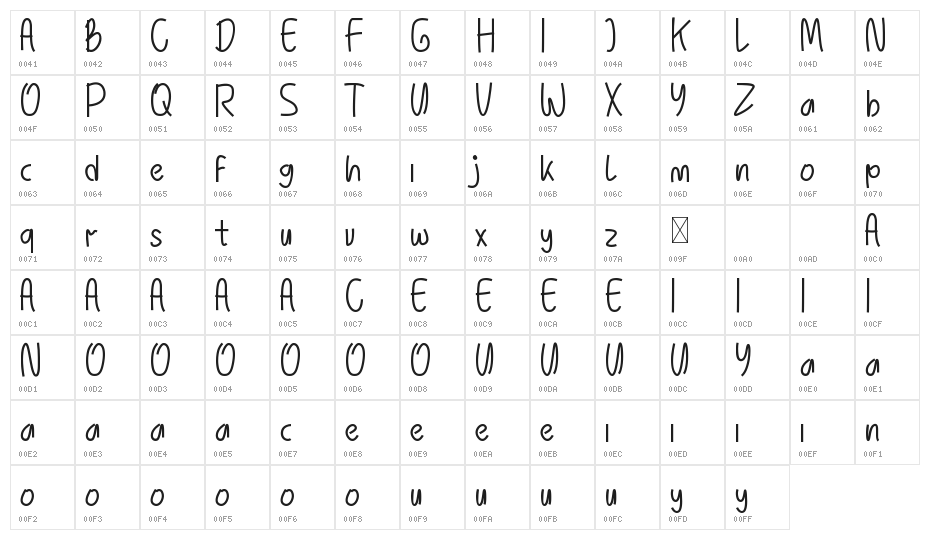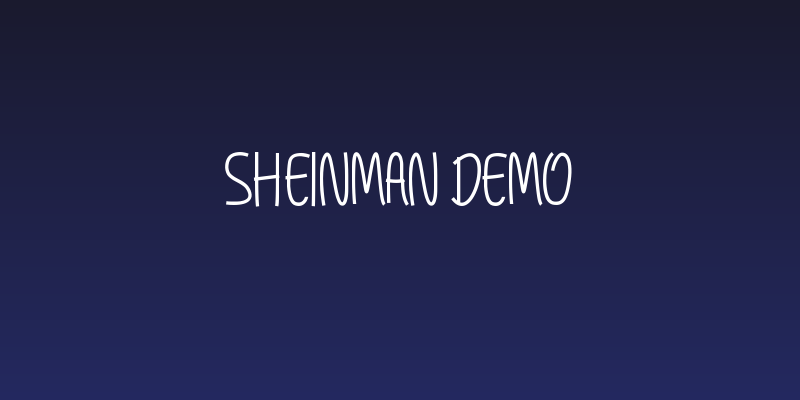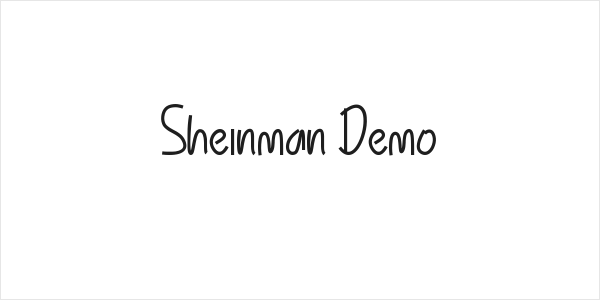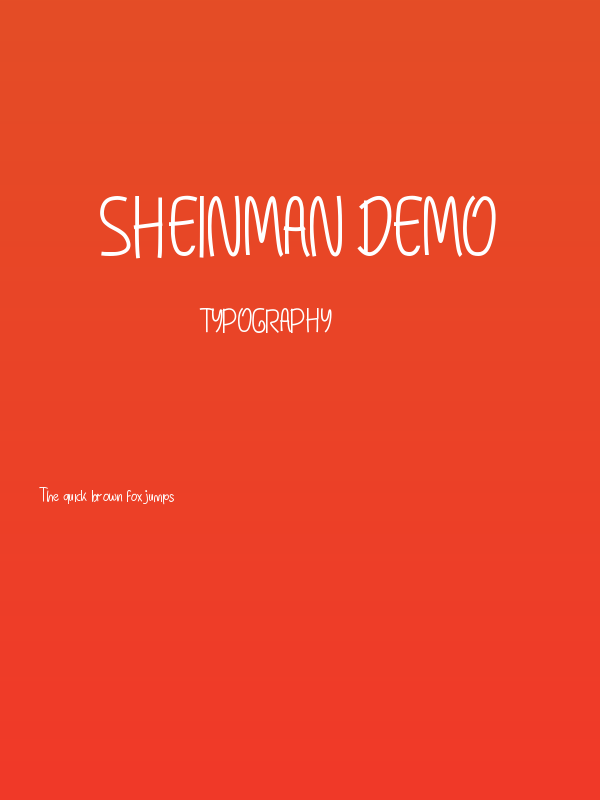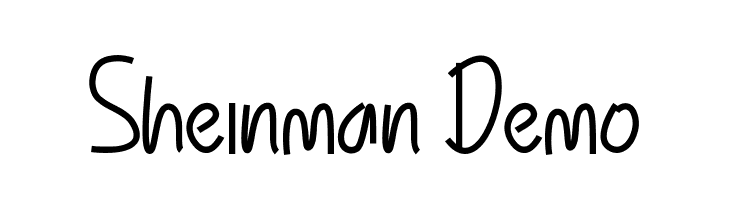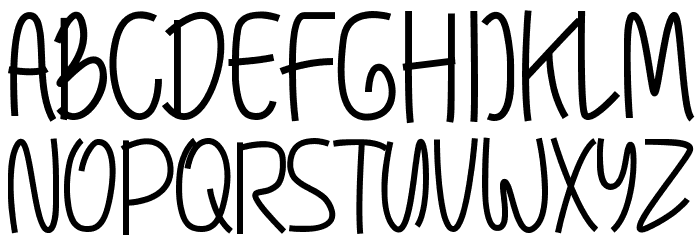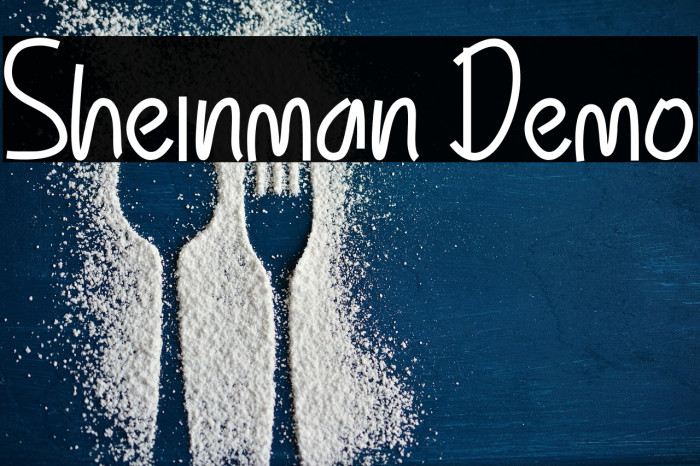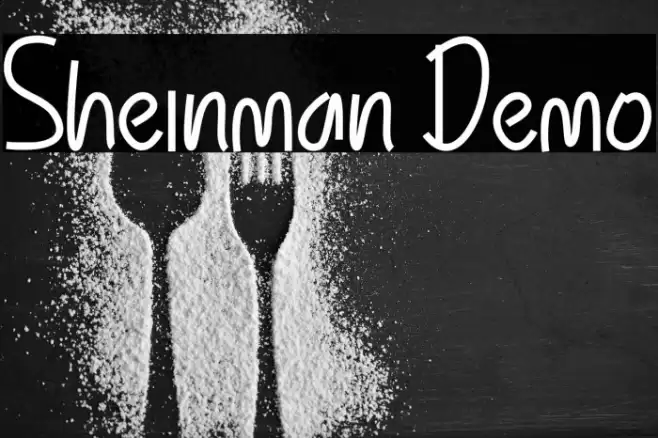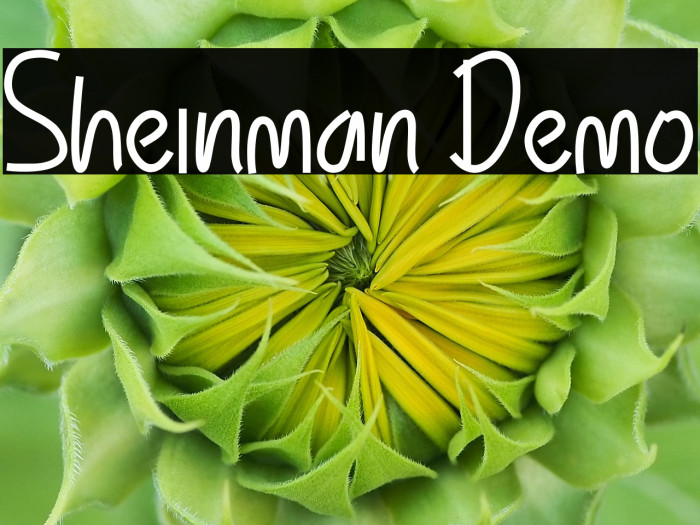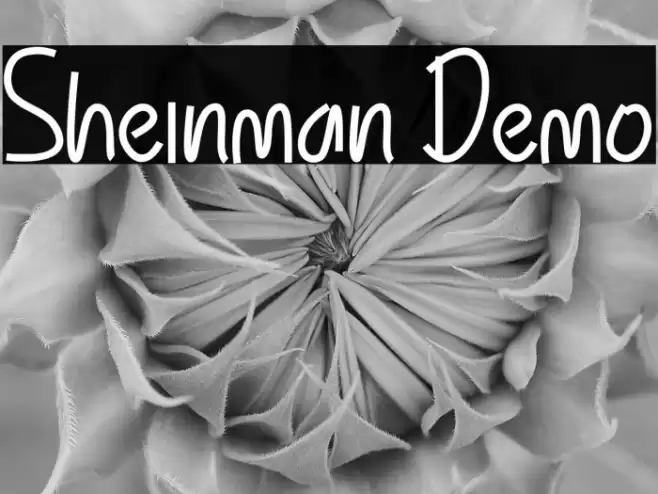
Sheinman Demo Font
| Общий стиль | Playful |
| Рекомендуемые проекты | Ideal for children's books, greeting cards, playful branding, and creative posters. |